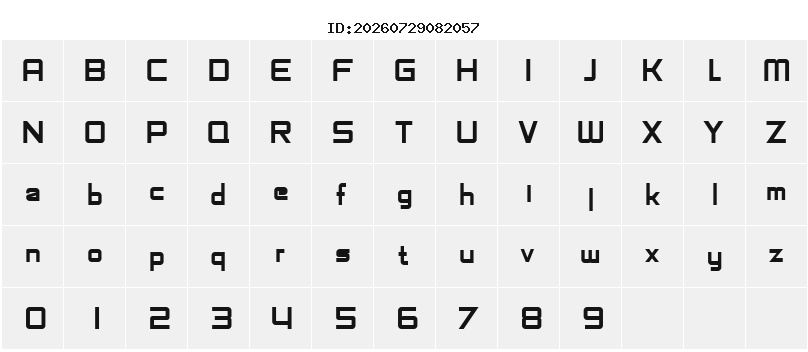
• Font Name: JI-Poorly
• Full Font Name: JI-Poorly
• Designer: JupiterImages
About JI-Poorly.ttf
JI-Poorly.ttf is a modern, elegant sans-serif font designed for ultimate readability and visual harmony. Perfect for branding, headlines, web design, and print materials.